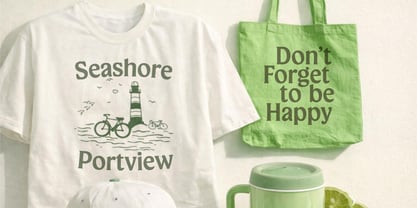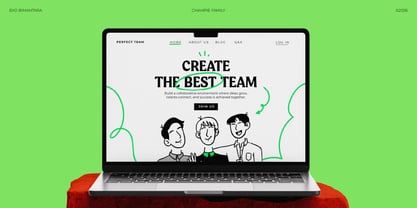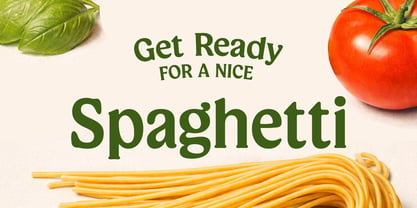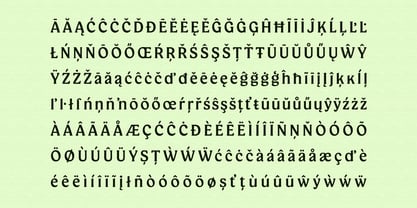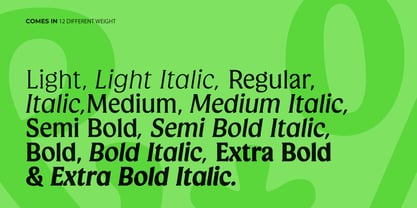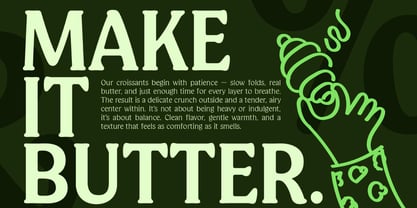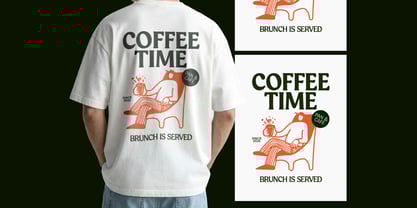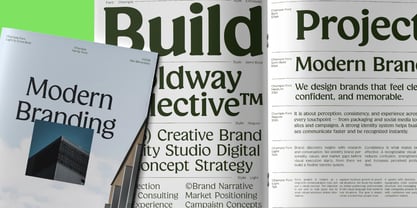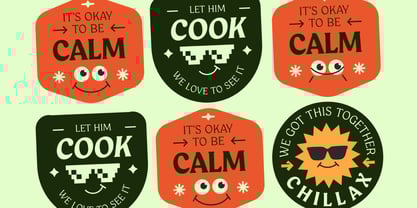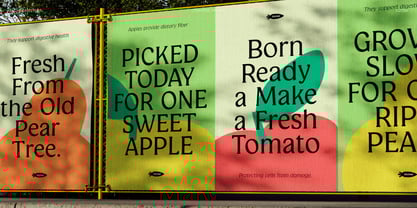
Champie
Die Schriftfamilie Champie wurde von Eko Bimantara, Faris Muafa entworfen und von Eko Bimantara veröffentlicht. Champie enthält 12 Stile und Familienpaketoptionen.
Champie is a soft serif font family characterized by its warm, fun, and bold aesthetic. With its short serifs and unique personality, Champie effortlessly combines a sense of fun with an elegant touch, making it a versatile choice for a variety of design projects. The font family includes six styles, ranging from light to extrabold, each with matching italics and broad Latin characters, providing designers with ample options for creating dynamic and engaging designs.
Ideal for display, large-size settings, and headers, Champie fits seamlessly into various layout designs, logos, websites, brand identities, and product packaging. Its distinctive and playful yet sophisticated style makes it suitable for both text and web font usage, ensuring a broad range of graphic design and creative applications. Whether used for a vibrant website or an eye-catching product label, Champie adds a warm and inviting touch to any project.
Eko Bimantara is a type designer from Indonesia. Always has an intention to creating fonts that not only look great but also perform across a wide range of mediums and also across wide range of theme. The goal is to give designers the tools to make their projects that speaks a lot with various expression. Eko Bimantara’s fonts are featured in everything from corporate identities to street art posters, and have numerous ideas and concept ready to expand for fresh fonts for years further.